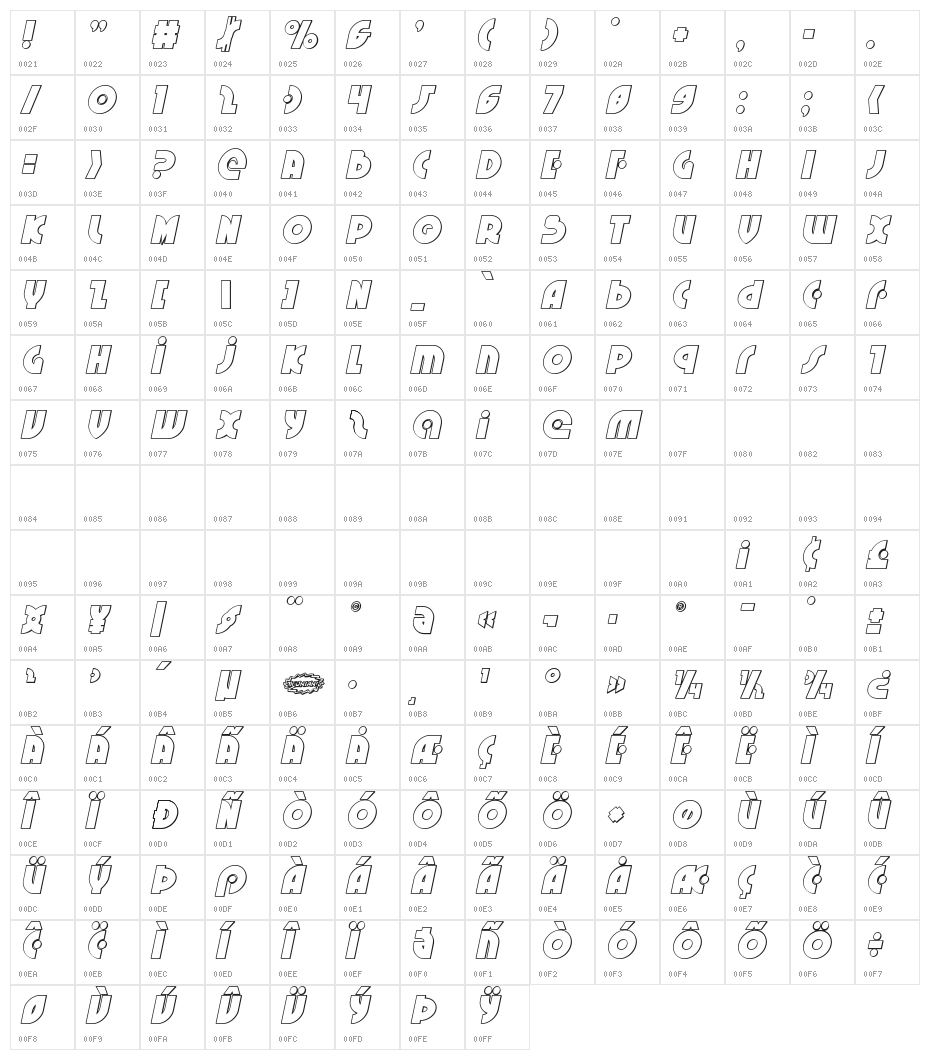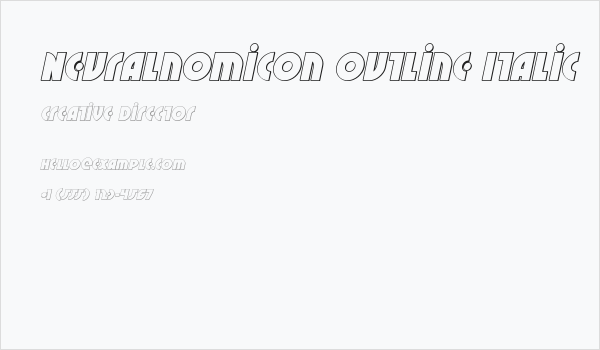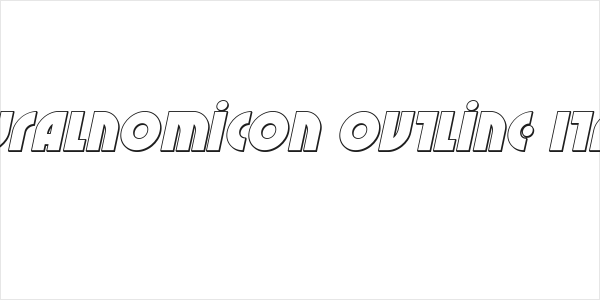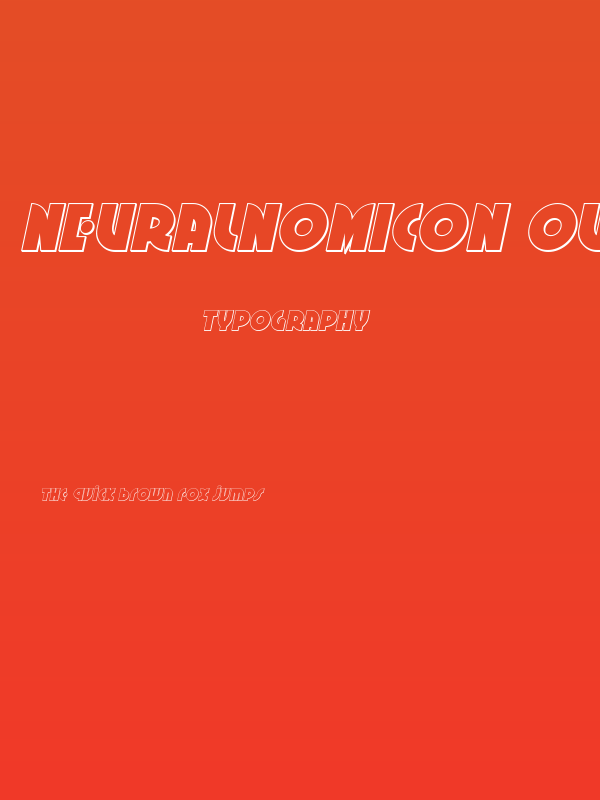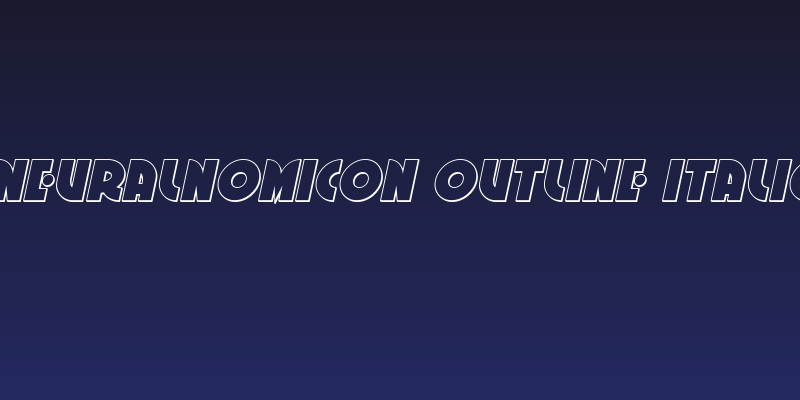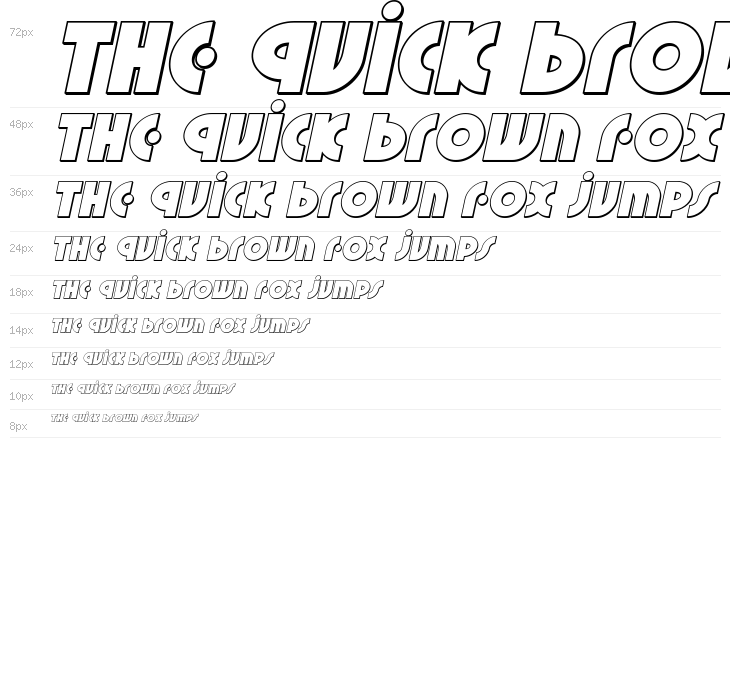
Neuralnomicon Outline Italic Font
Neuralnomicon Outline Italic Description
This font features a bold, futuristic design with a distinct outline style. Each character is crafted with a unique geometric flair, giving it a modern and dynamic appearance. The italic slant adds a sense of motion and energy, making it stand out in any design. The uppercase and lowercase letters maintain a consistent style, while the numerals and special characters complement the overall aesthetic. The font's bold outlines and angular shapes make it ideal for eye-catching designs.